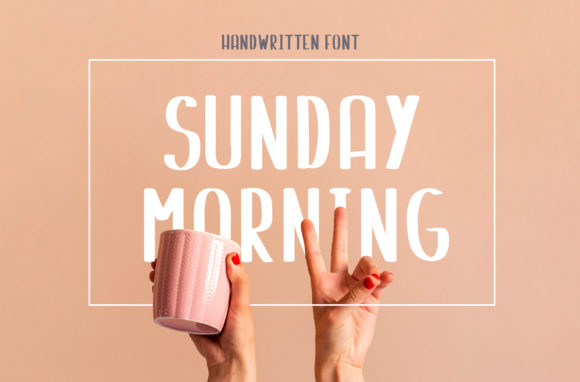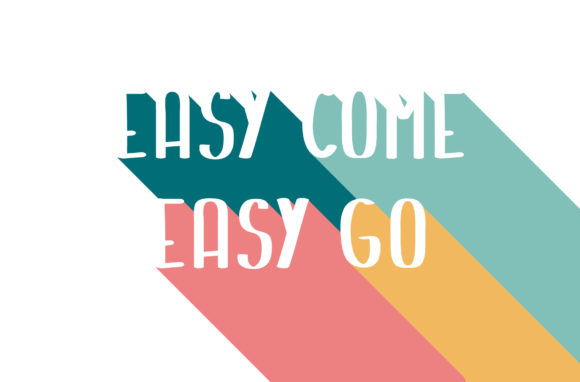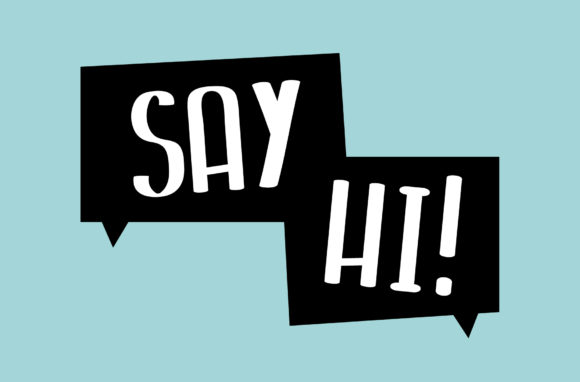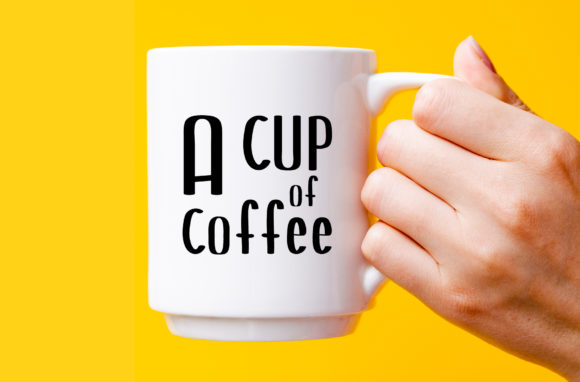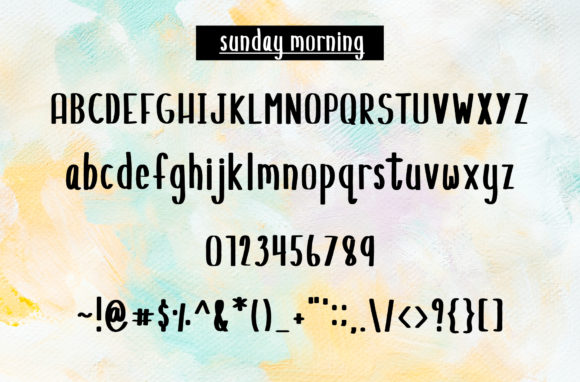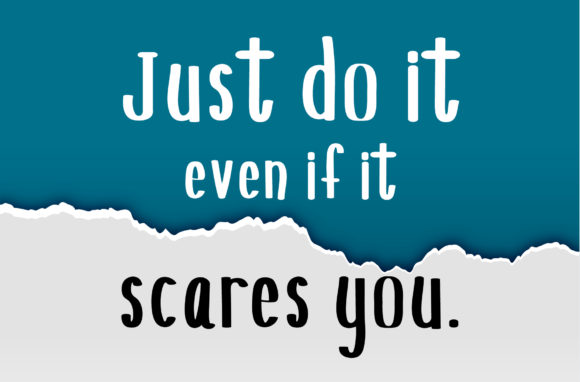
Sunday Morning Font
About Sunday Morning Font
Sunday Morning results out of a stunning pairing of a brush pen and pencil that makes it look incredibly endearing and authentic. Use this gorgeous and unique handwritten font to bring any DIY project to life!